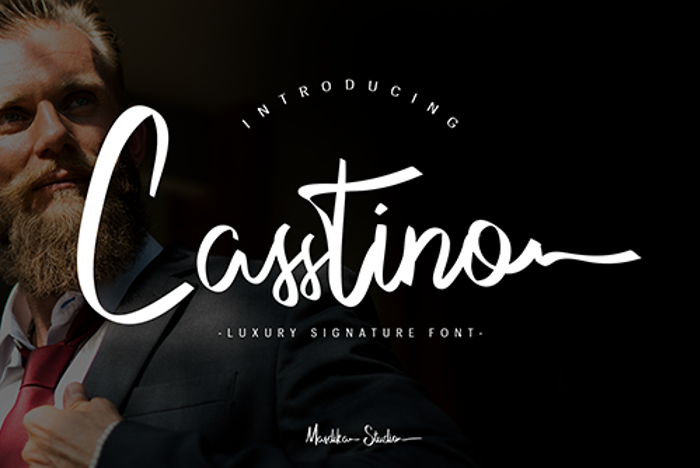
Casstino Font
Casstino, This is handwritten script font with sophisticated style. With extra attention to quick strokes and sharp details and give off a real personal touch to your projects